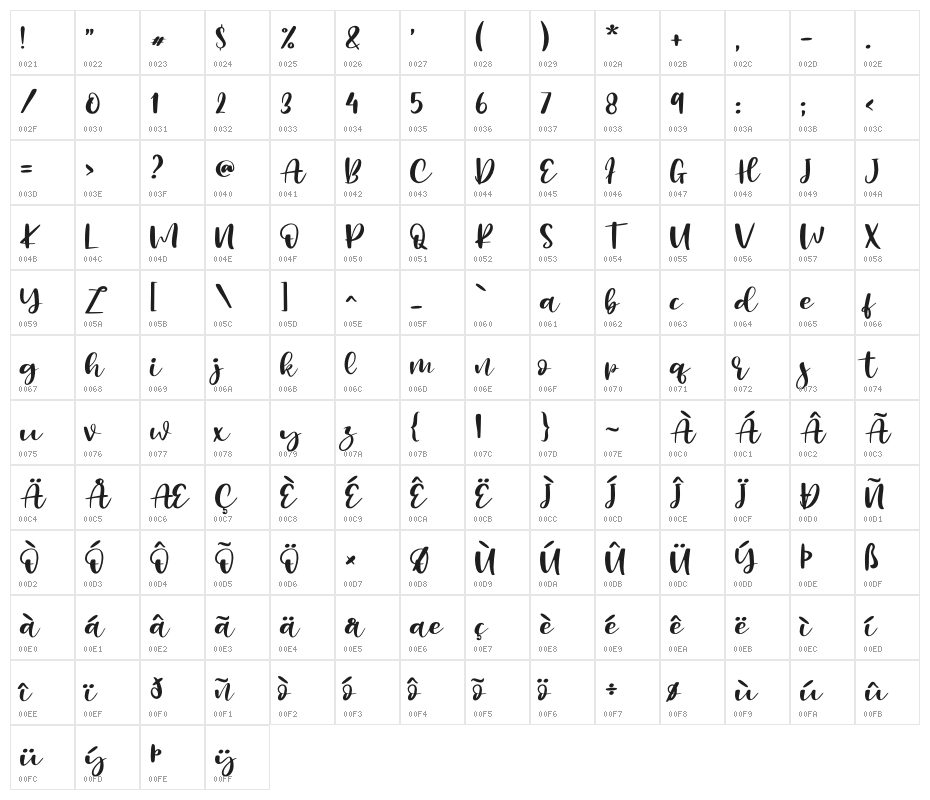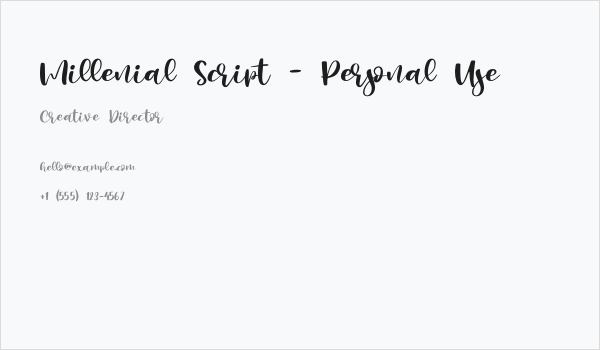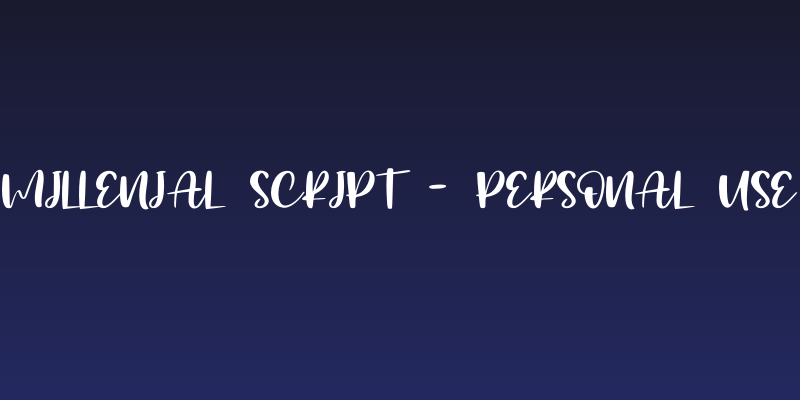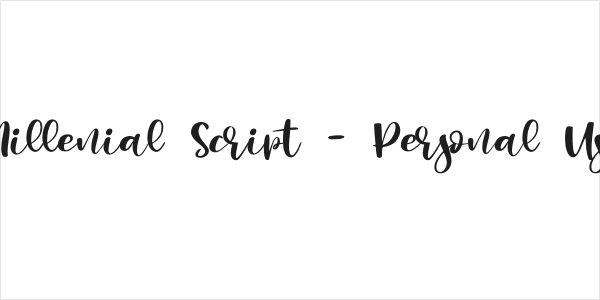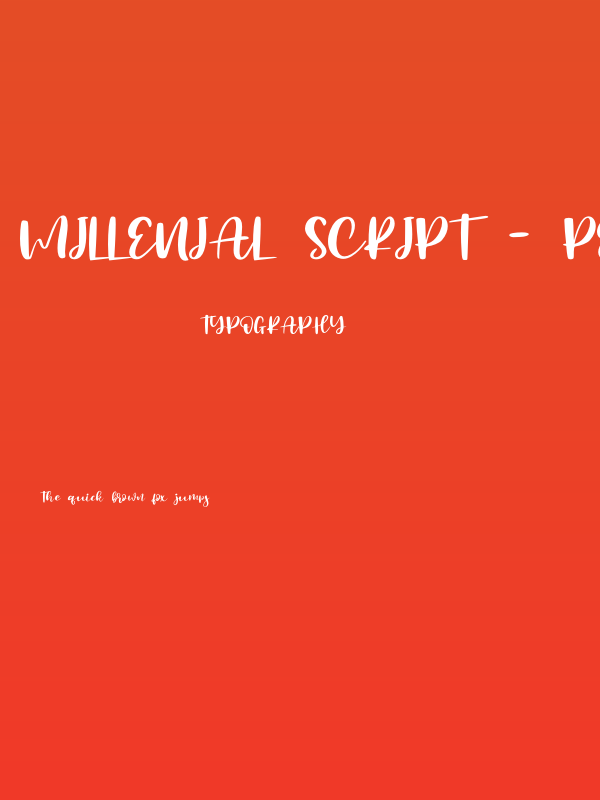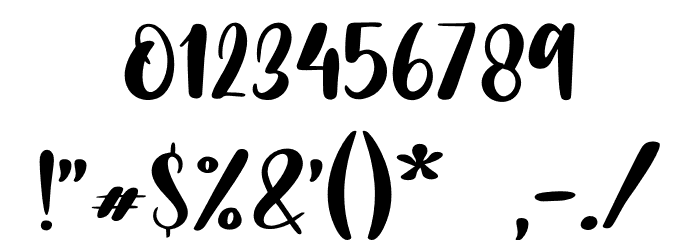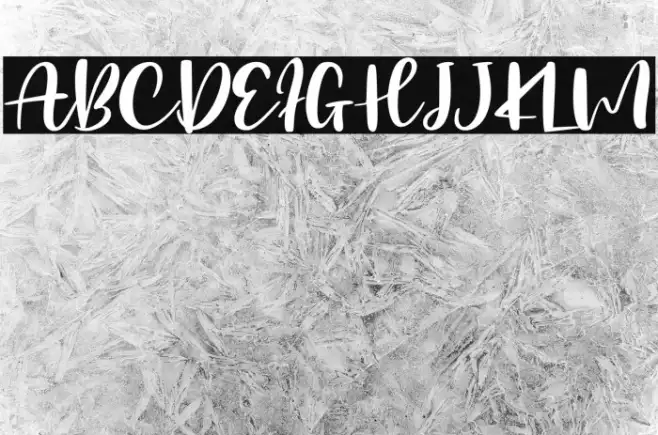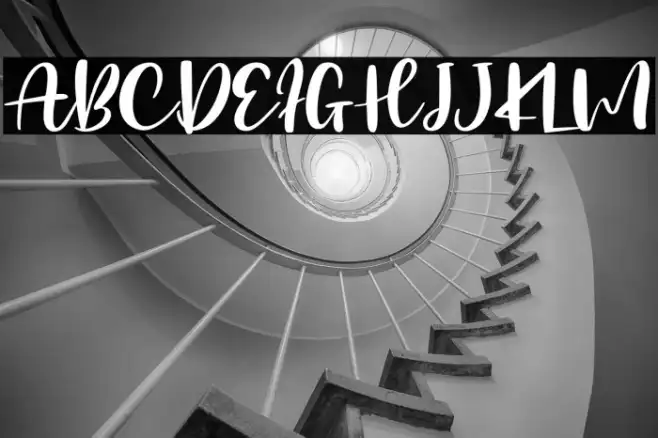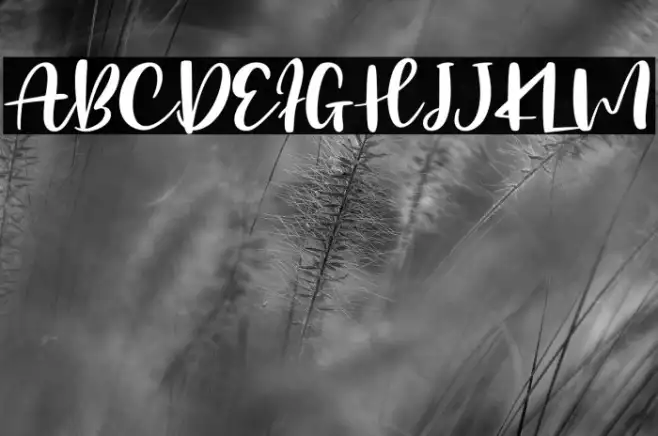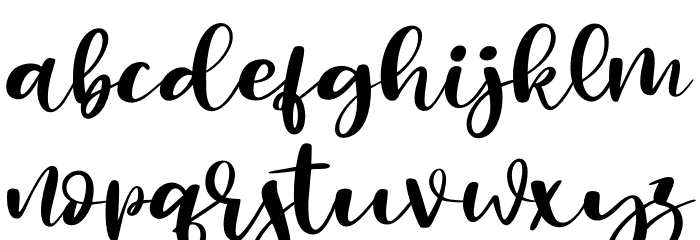
Millenial Script - Personal Use Font
Millenial Script - Personal Use Description
This font features a lively and flowing script style, characterized by its bold, sweeping curves and elegant, connected letters. The uppercase letters stand tall with a confident presence, while the lowercase letters maintain a consistent flow, enhancing readability. The numbers and special characters are designed to match the overall aesthetic, providing a cohesive look. The font's playful yet sophisticated nature makes it ideal for projects that require a personal touch. Its bold strokes and smooth transitions between characters give it a dynamic and modern feel.